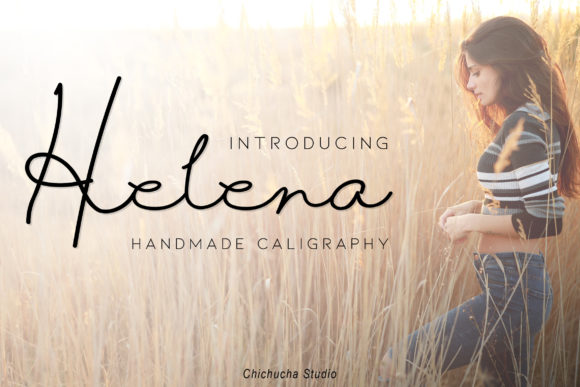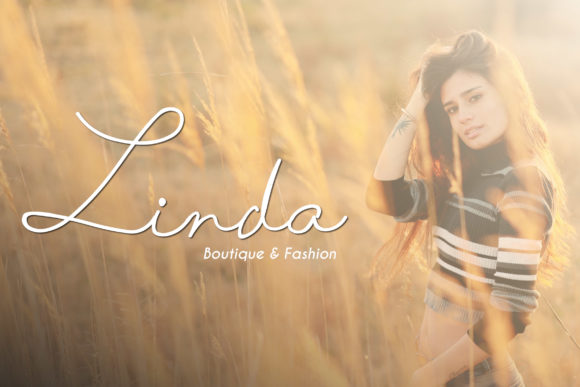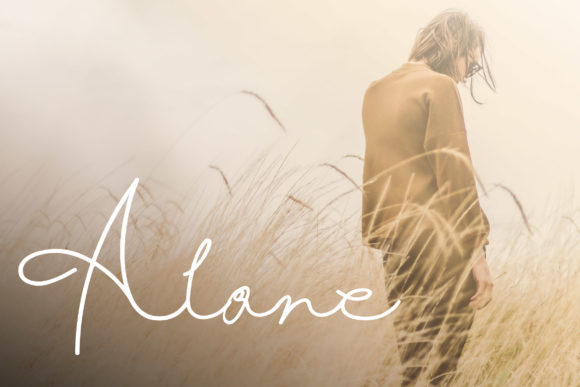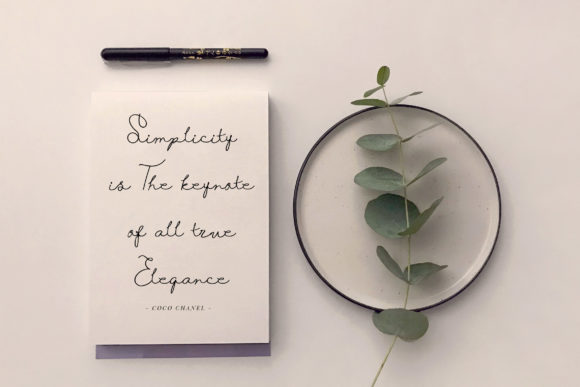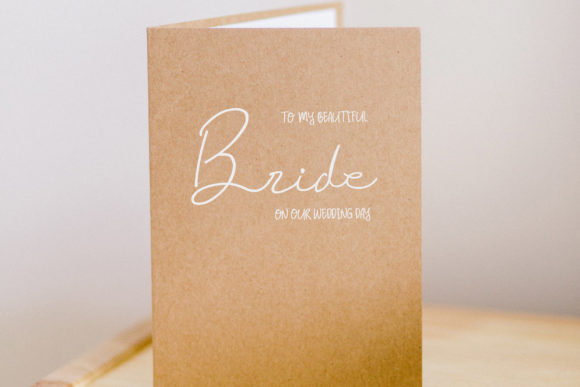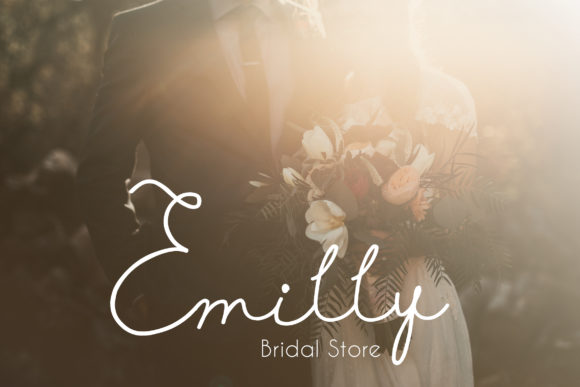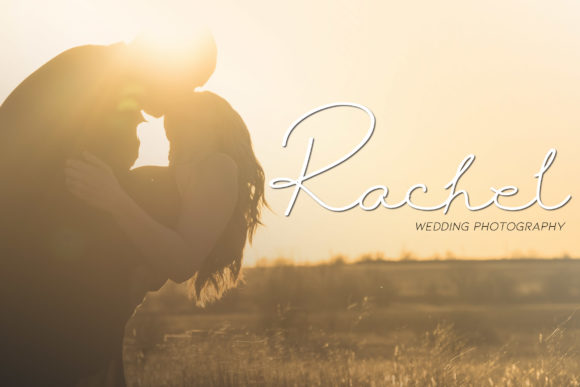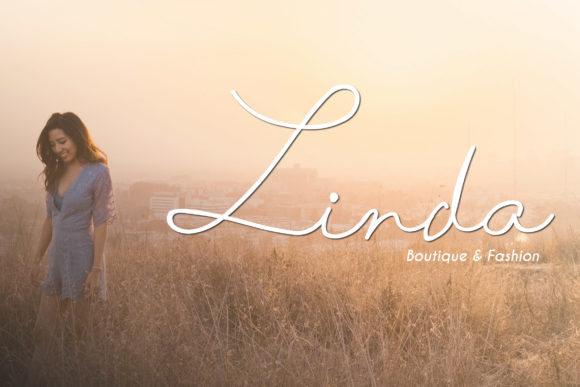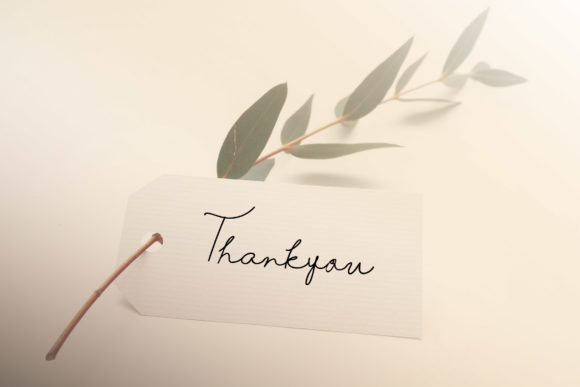
HomeScript FontsHelena Font Script Fonts Helena Font FacebookXPinterestWhatsApp Helena Font Poster 2 Helena Font Poster 3 Helena Font Poster 4 Helena Font Poster 5 Helena Font Poster 6 Helena Font Poster 7 Helena Font Poster 8 Helena Font Poster 9 About Helena Font Helena is a light and casual script font, perfect for taking any craft to the next level. DOWNLOAD NOW People also explored Wedding Valentine Font Hello Font Toby Font Haunted House Font Rastania Script Font Nightmare Eggplant Font U My Vacine Font Turntable Font Christmas Snowball Font 311 0 TagsHelena Font Previous articleScientia Venit FontNext articleNorthern Lights Font LEAVE A REPLY Cancel reply Comment: Please enter your comment! Name:* Please enter your name here Email:* You have entered an incorrect email address! Please enter your email address here Website: Save my name, email, and website in this browser for the next time I comment. Personal Use Free Sui Genesis Personal Use Free Read more about this font Little Pigeon Personal Use Free Read more about this font Eva Personal Use Free Read more about this font Yesstea Personal Use Free Read more about this font BLOG Best Fonts for YouTube Videos: Make Your Thumbnails Stand Out Best Fonts for YouTube Videos: Make Your Thumbnails Stand Out Choosing the right font can make a massive difference in how your YouTube videos perform.... The 10 Best Handwriting Fonts to Add Personality to Your Designs Where to Buy American Fonts Online in 2024 Top 7 Google Fonts Alternatives for Faster and Privacy-Friendly Web Design (2025)